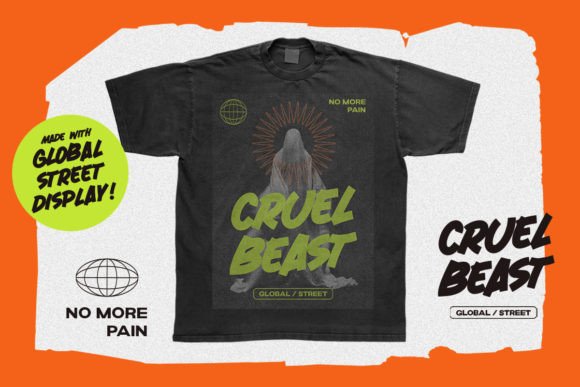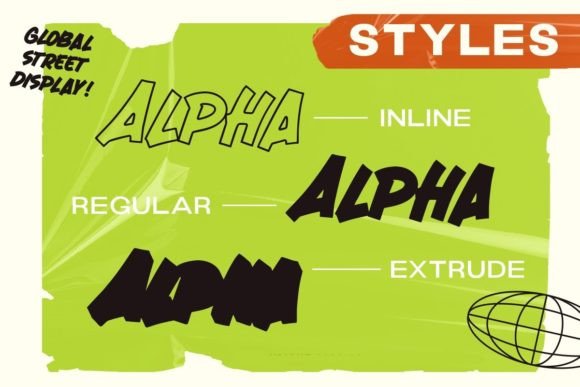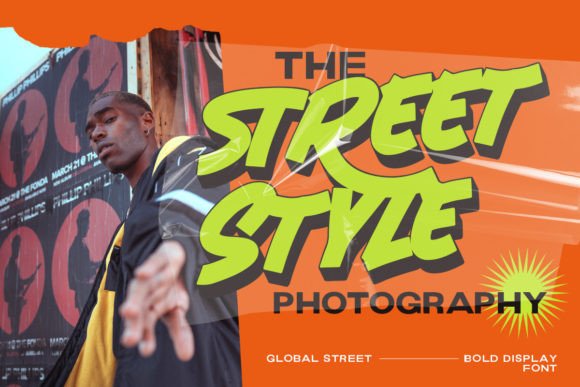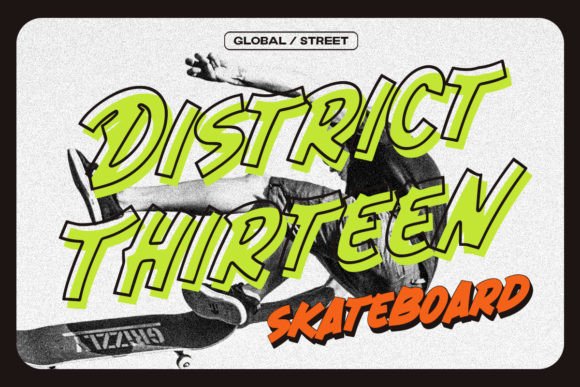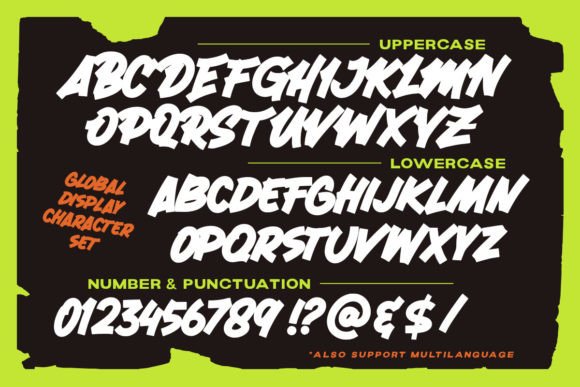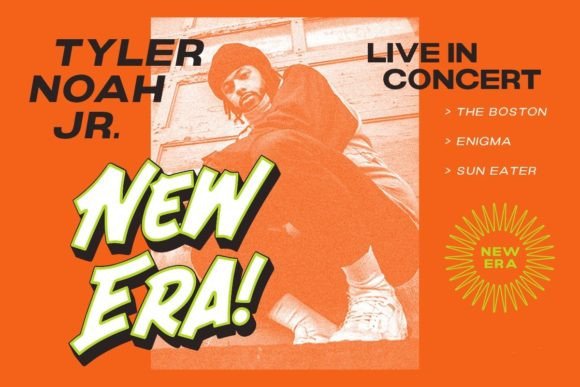
The Ultimate Urban Font: A Deep Dive into Global Street
I’ll never forget the time I was working on a project for a trendy clothing brand. I had the perfect design concept, but I just couldn’t find the right font to bring it all together. The font had to be bold, edgy, and urban – something that would make the design pop. That’s when I stumbled upon Global Street, a cool and bold display font that instantly caught my attention. Its trendy, urban style was perfect for creating unique designs, and I knew right then and there that I had found the one.
An Honest Review of Global Street
- ✨ Bold and Edgy: Global Street has a bold and edgy vibe that’s perfect for creating eye-catching designs.
- ✅ Trendy and Urban: The font’s trendy and urban style makes it perfect for designs that require a modern and fresh look.
- 💯 Highly Versatile: Global Street can be used for a wide range of design projects, from posters and flyers to social media graphics and branding.
While Global Street is an amazing font, there are a few quirks to be aware of. 🤔 For example, some users have reported issues with kerning, particularly when using the font at smaller sizes. ⚠️ Additionally, the font may not be suitable for body text, as it’s primarily designed for display purposes.
A Practical Guide to Using Global Street
- Take advantage of OpenType features, such as glyphs and stylistic alternates, to add more creativity to your design.
The Backstory Behind Global Street
Global Street was designed by a team of creatives who wanted to create a font that captured the essence of urban culture. Inspired by street art, graffiti, and urban landscapes, they crafted a font that’s bold, edgy, and modern. The result is a font that’s perfect for designers who want to add a touch of urban flair to their designs.
| Font Name | Global Street Font |
| Author | letterhend |
Q: What type of designs is Global Street best suited for?
A: Global Street is perfect for designs that require a bold, edgy, and urban look, such as posters, flyers, social media graphics, and branding.
Q: Does Global Street support OpenType features?
A: Yes, Global Street supports OpenType features, including glyphs and stylistic alternates.